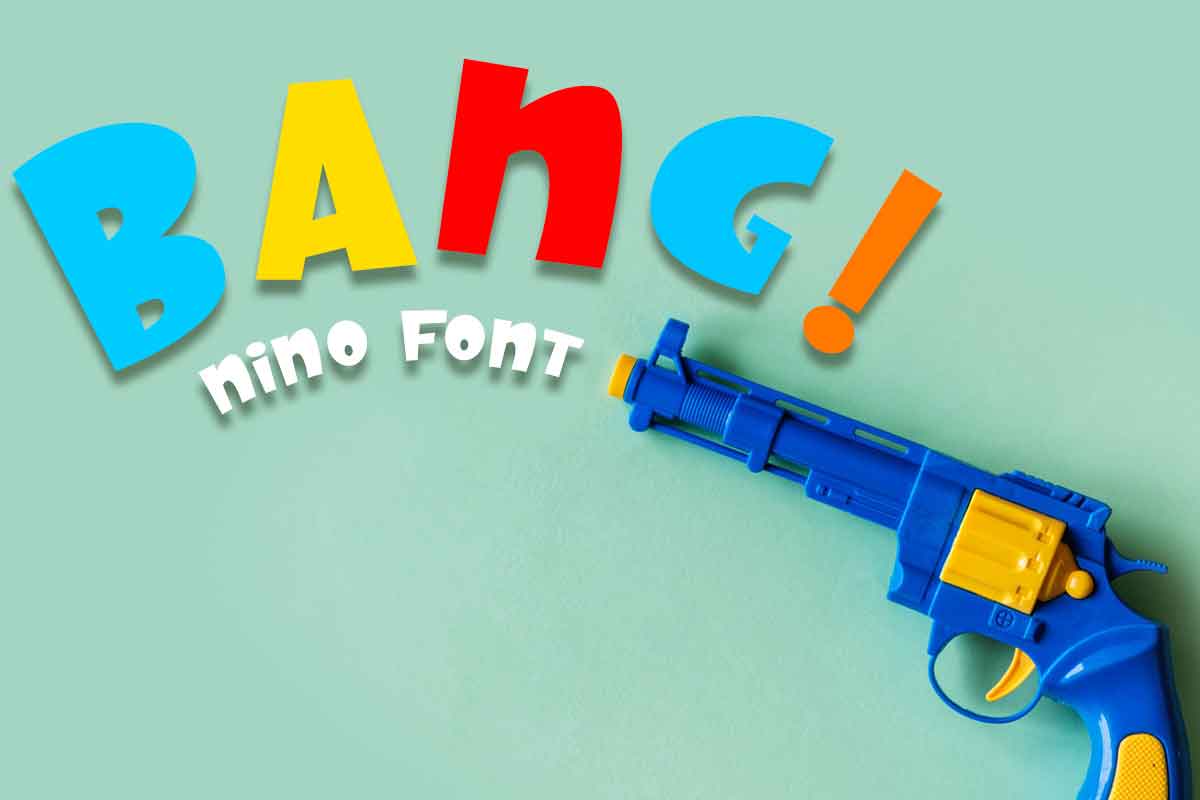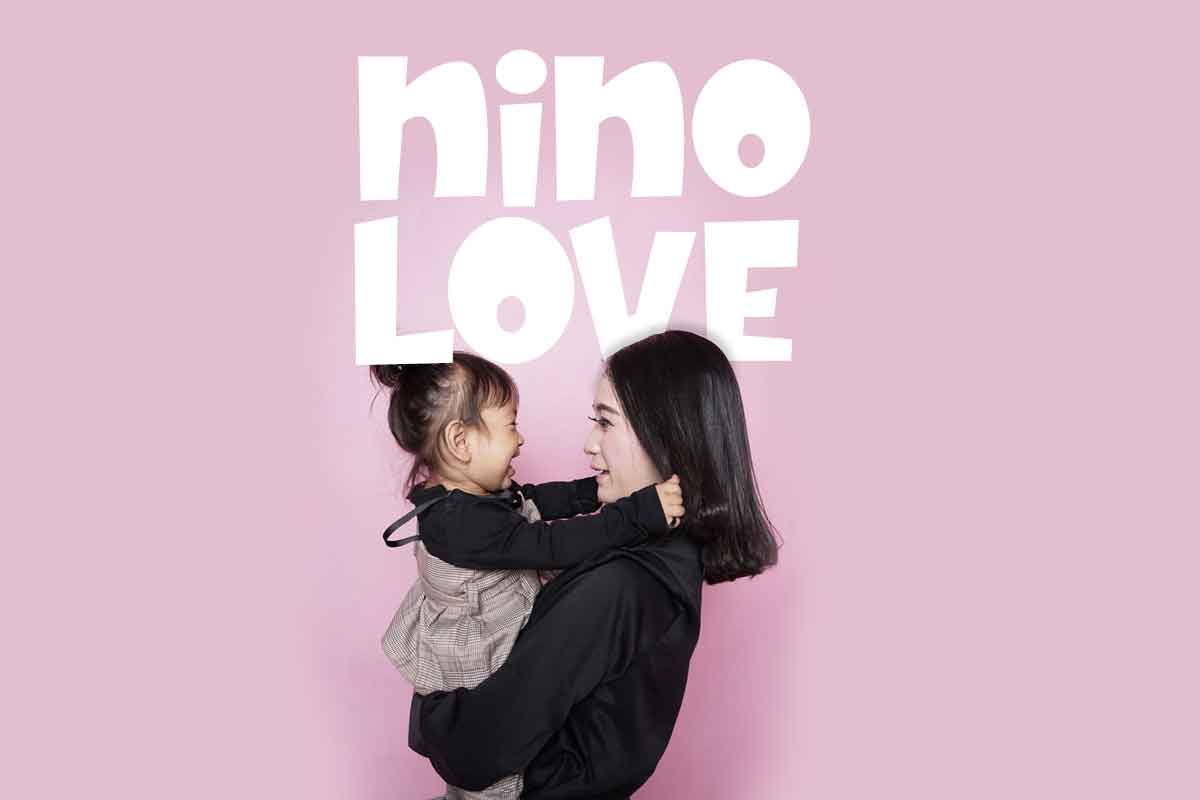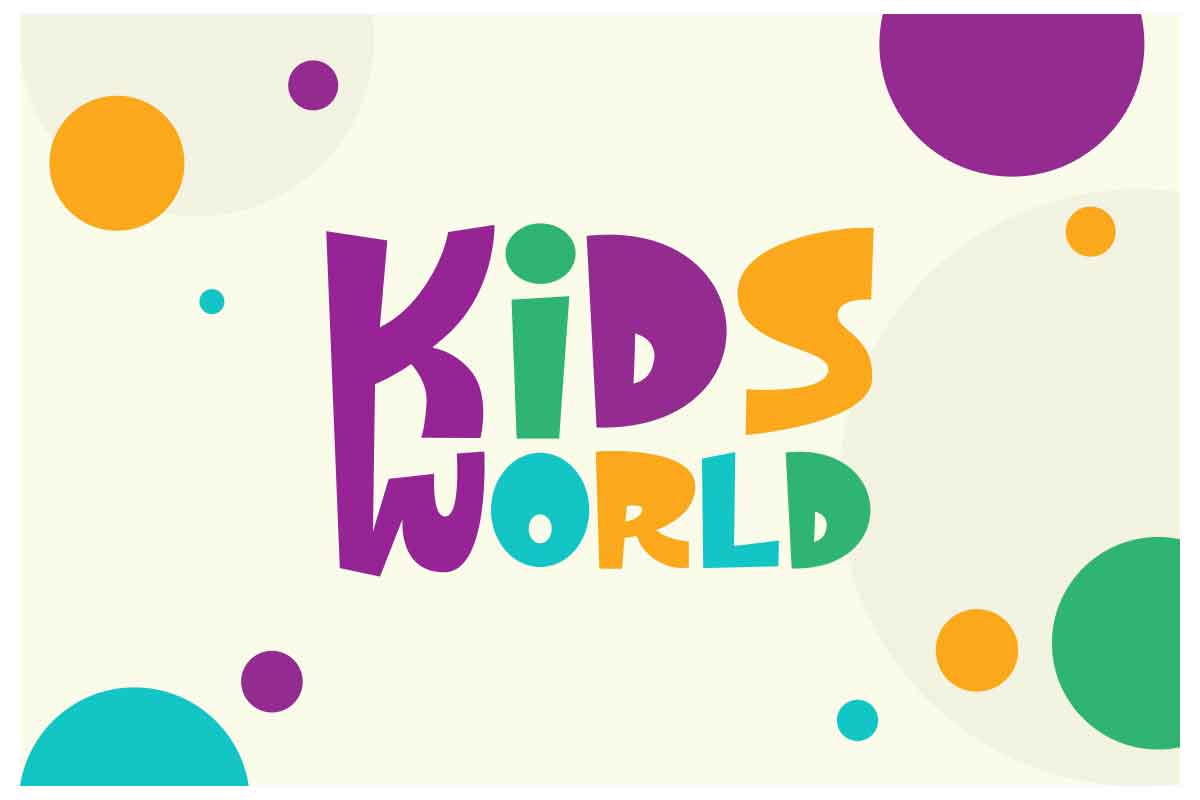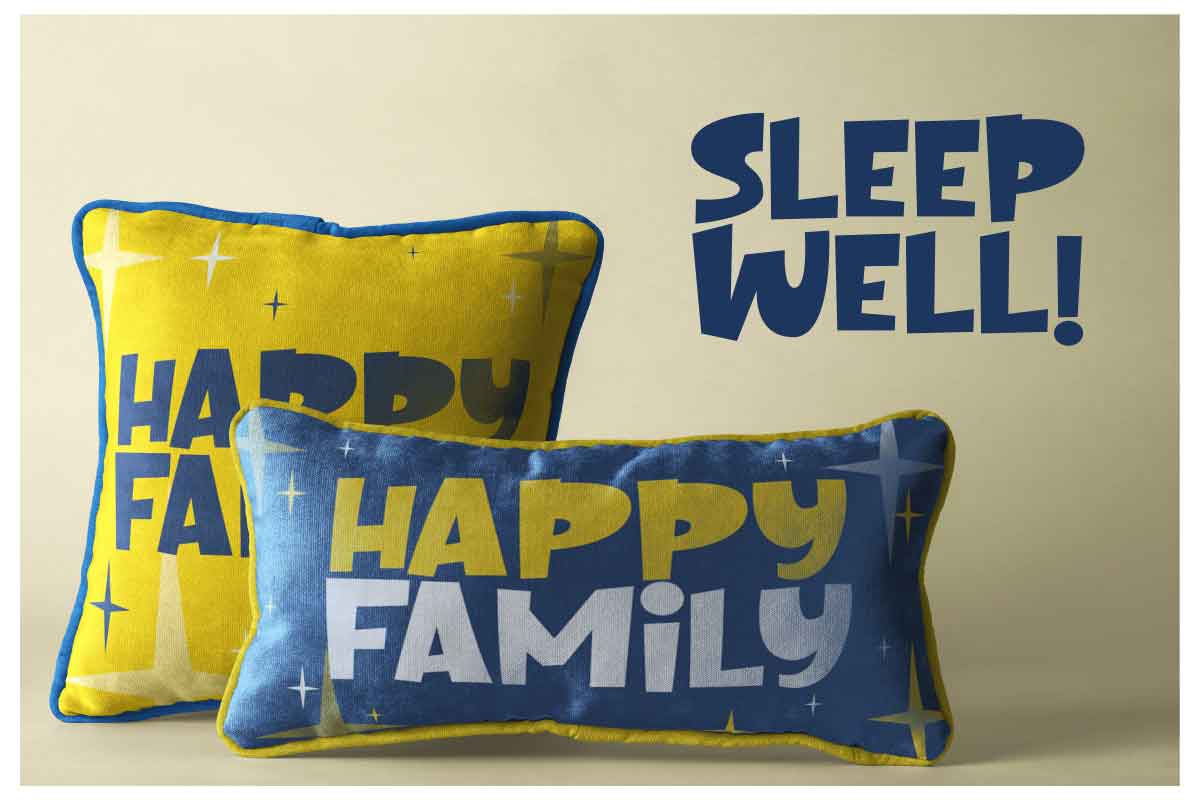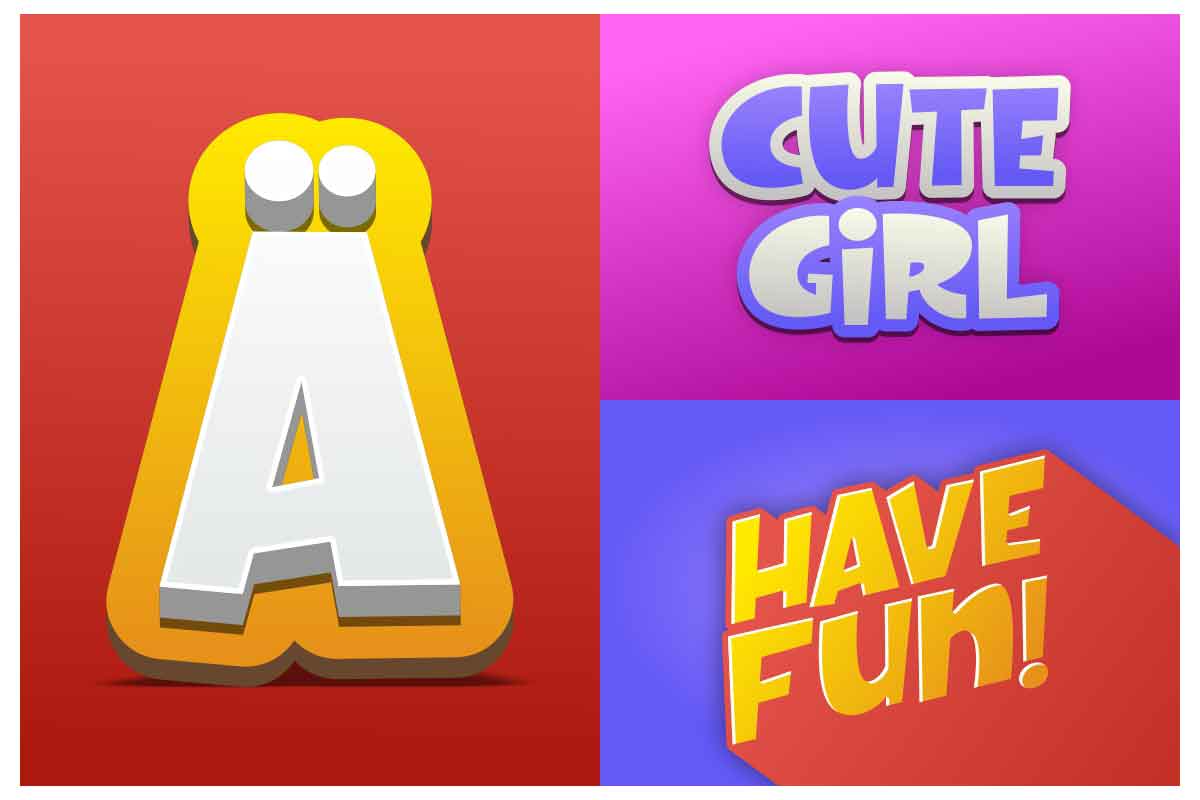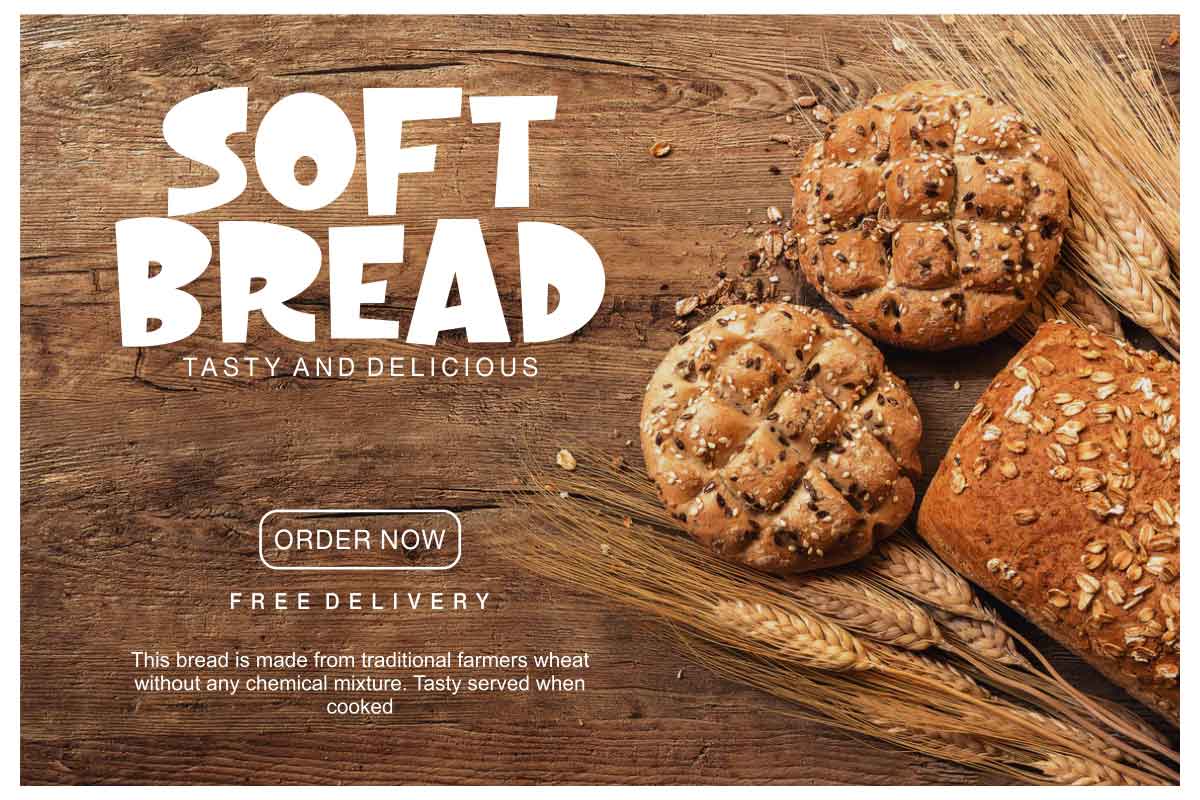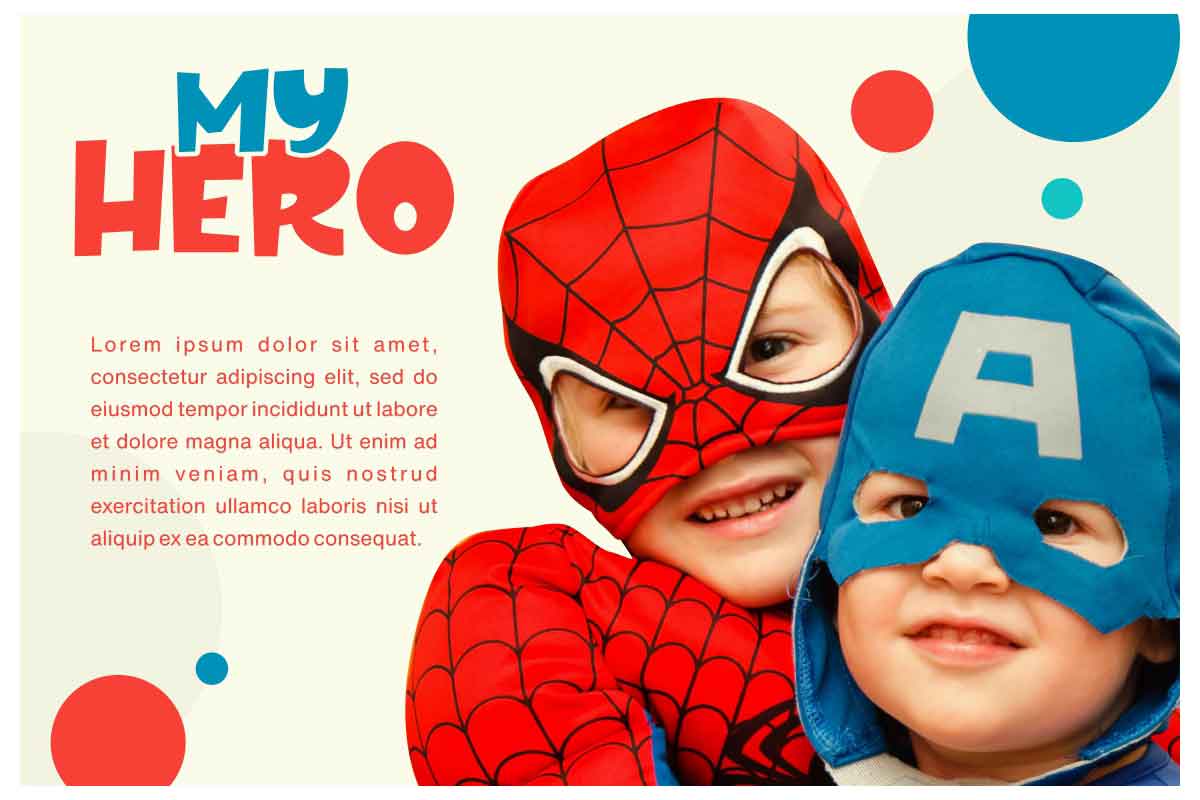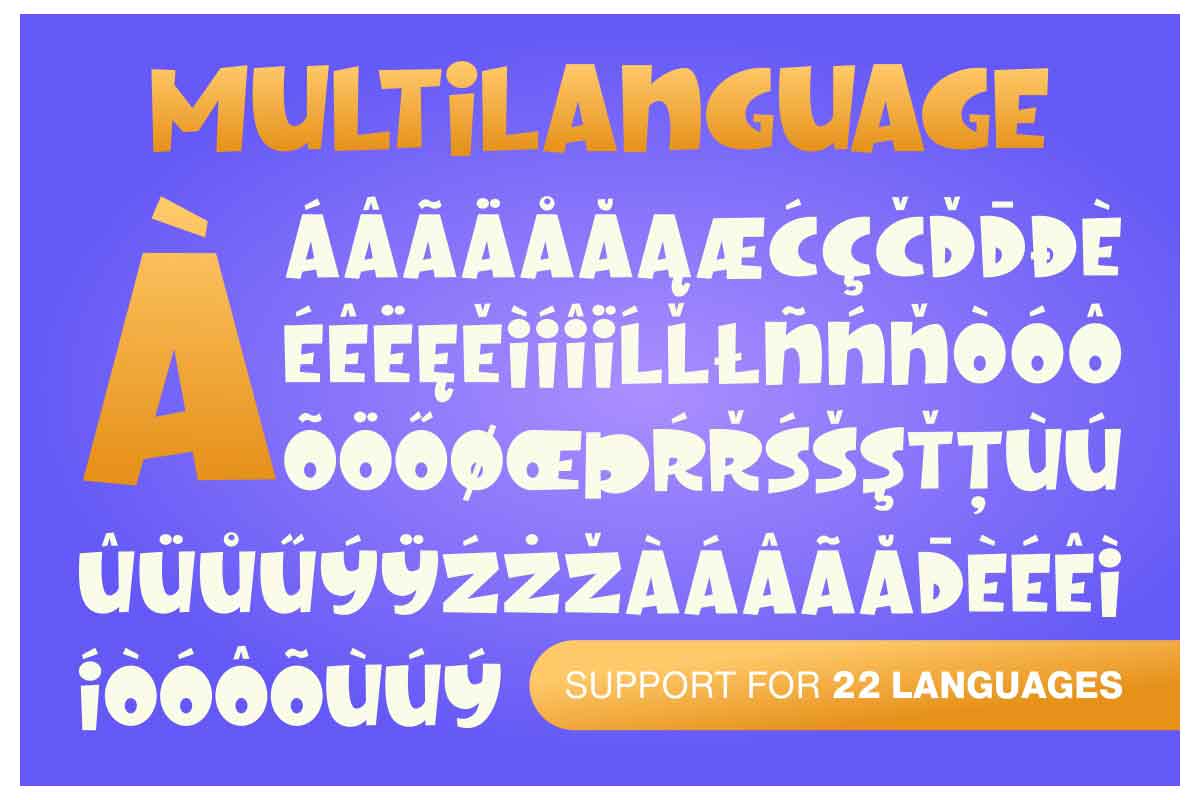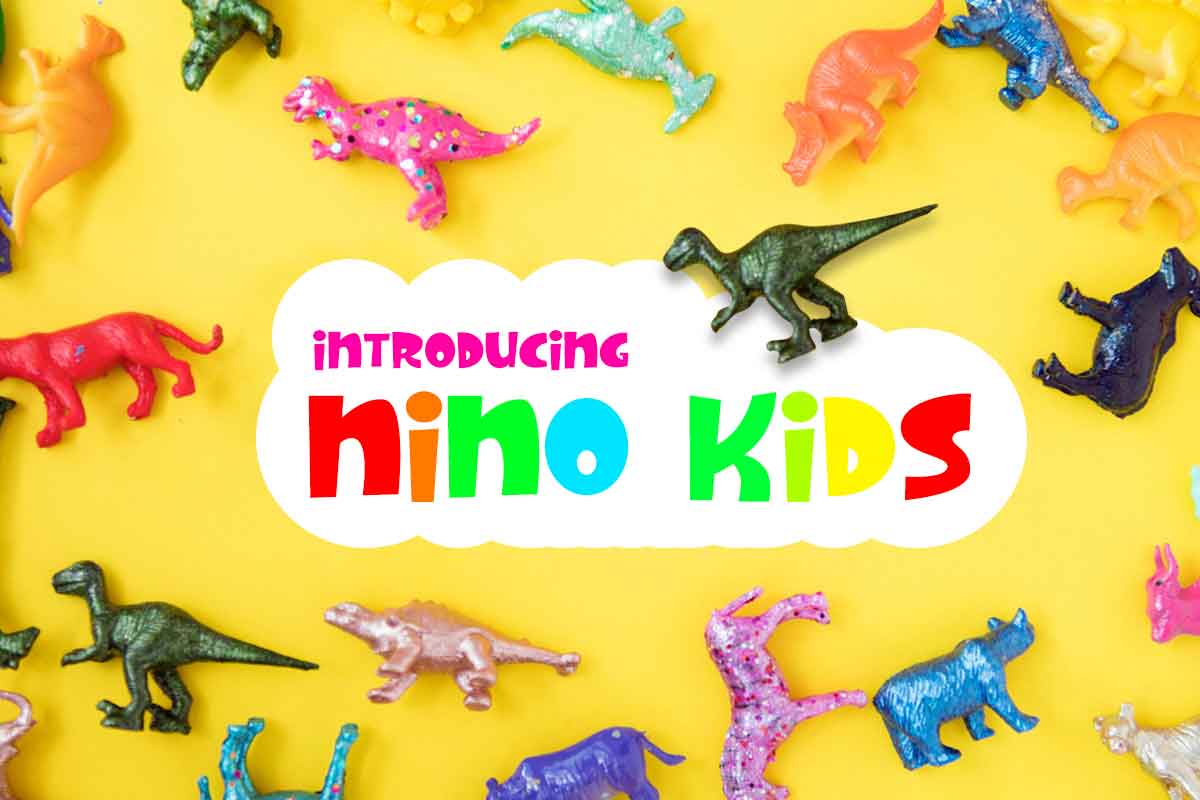
Nino Display Font Part of our Display font collection, Nino Playful Font is a modern font with a simple, easy-to-read appearance. A fun typeface that anyone who sees it can easily fall in love with. Clean fonts without any additions, easy to understand, and classified as legible fonts. Nino Playful Font can use as a digital font and print font. This font can write as comic covers, magazine covers, and children's book covers. This font can be used as a poster and banner. These reasons must be complemented by colors and ornaments that support it. For small-size print fonts, this font can also use for small merchandise from amusement parks, such as; key chains, fridge magnets, and stickers, or can be produced on t-shirts, jackets, hats, etc. In addition, it can use as snack packaging. The digital application of Nino Playful Font is in product advertisements, animated cartoon videos, children's films, and others. It can give an exciting and fun impression to video shows. This is to attract interest in buying products being marketed and watching films that have been shown. Our Display font collection is compatible to use as; Figma fonts, Canva fonts, Freepik Fonts, and Adobe Fonts. They also work as Windows Fonts, and Apple Fonts. For your social media needs, you can use and install fonts in our collection of Espot & Futuristic fonts to use as Instagram Fonts, Facebook Fonts, and Twitter Fonts.